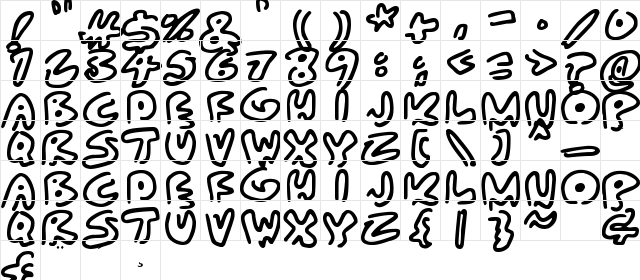
Almost Outlines Regular
Design Context for Almost Outlines Typeface
Almost Outlines is built around its visual character rather than neutral utility — its distinctive forms are designed to make an impression at display sizes.
Font Pairing: Pair with a clean neutral sans-serif for body copy to let Almost Outlines's character lead without overwhelming the composition.
Pro Tip: Use Almost Outlines exclusively at display sizes — it was designed to be seen, not read at length. Let a neutral companion handle body copy.